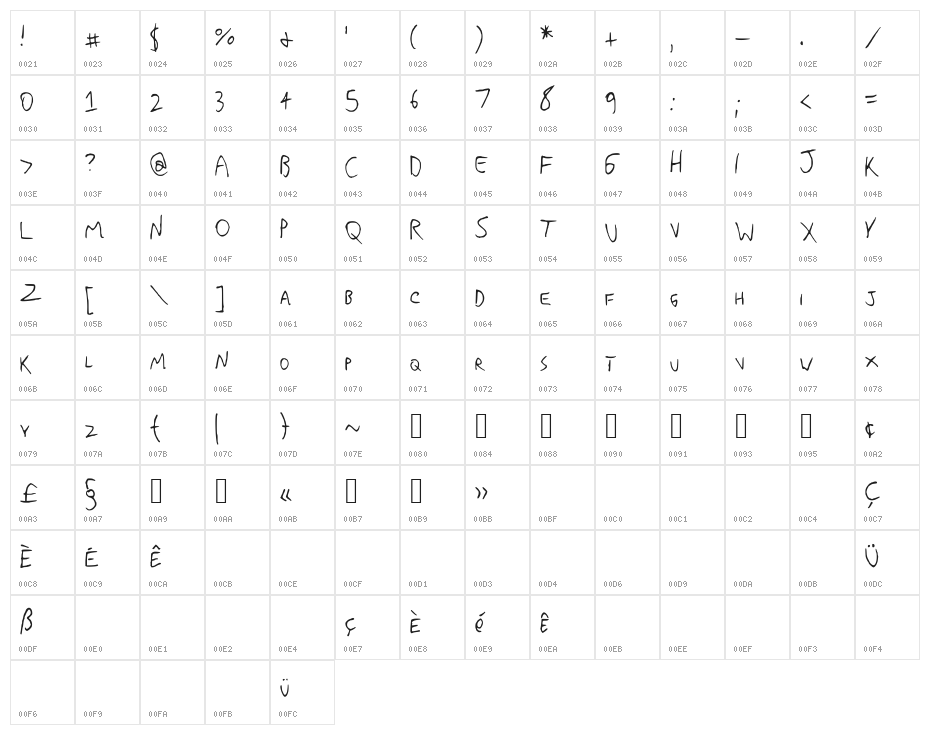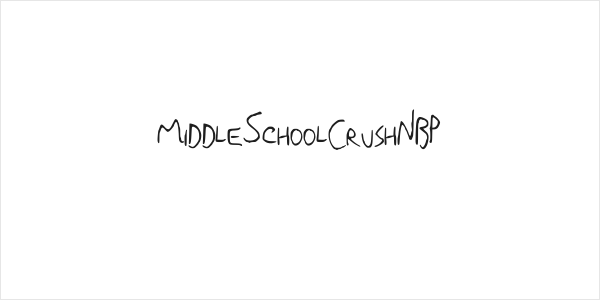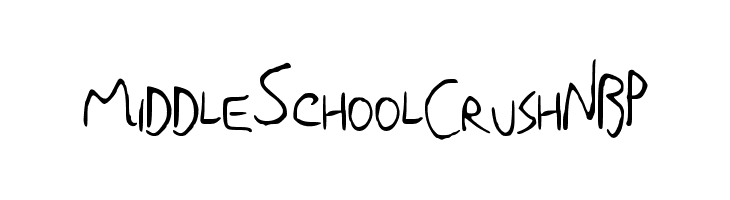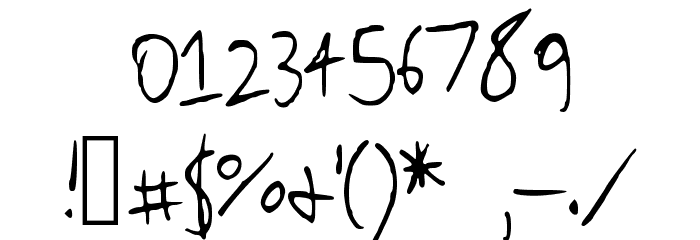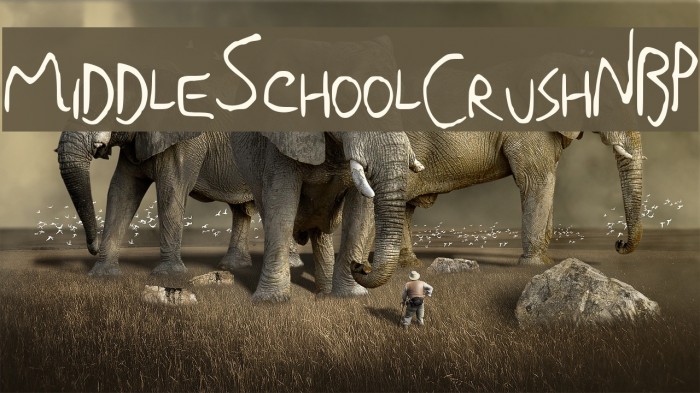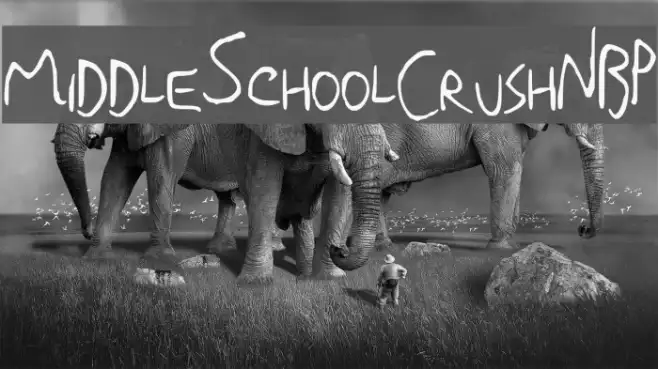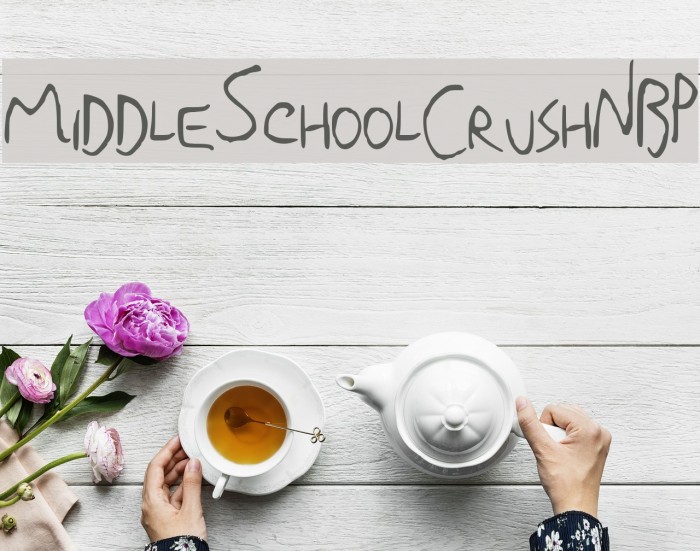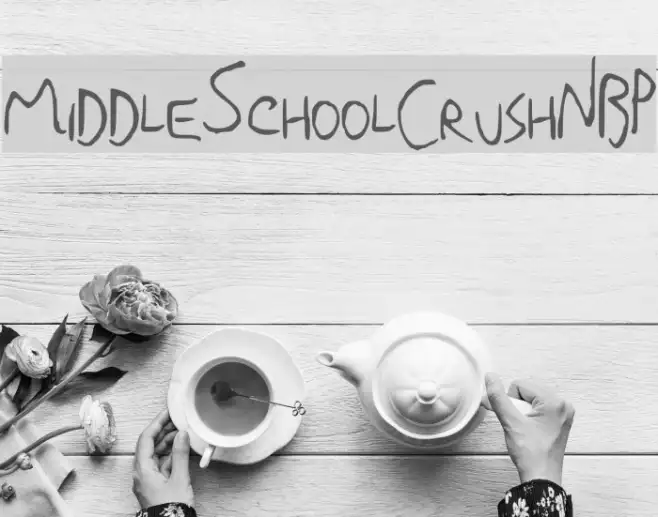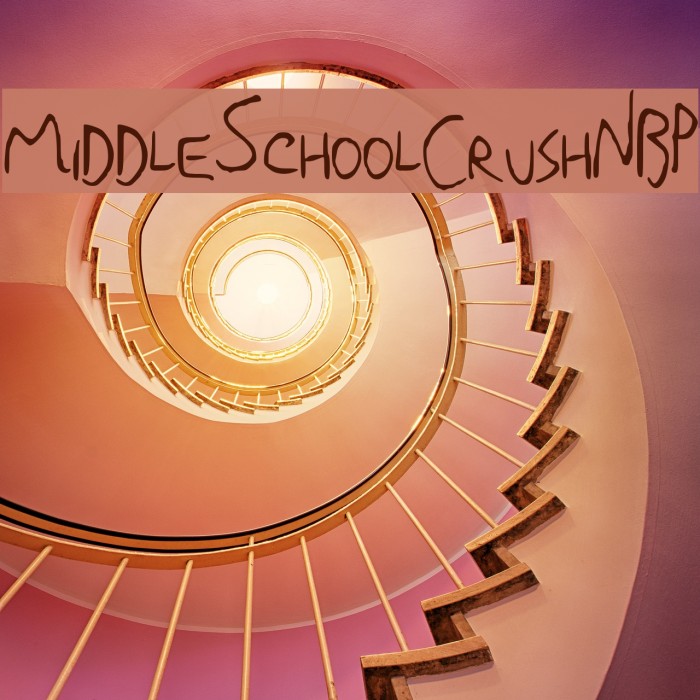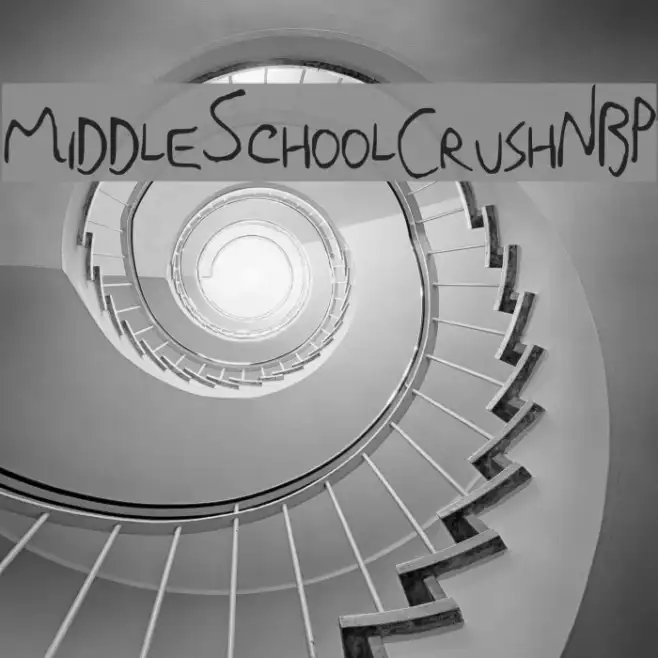
MiddleSchoolCrushNBP Font
MiddleSchoolCrushNBP Description
This font exudes a playful and casual handwritten style, characterized by its irregular and slightly whimsical letterforms. The strokes are uneven, giving it a lively and spontaneous feel, reminiscent of doodles or notes scribbled in a notebook. The uppercase and lowercase letters maintain a consistent style, with a slight slant and varying stroke thickness that adds to its informal charm. The numerals and special characters follow the same playful aesthetic, making the font suitable for creative and informal projects.